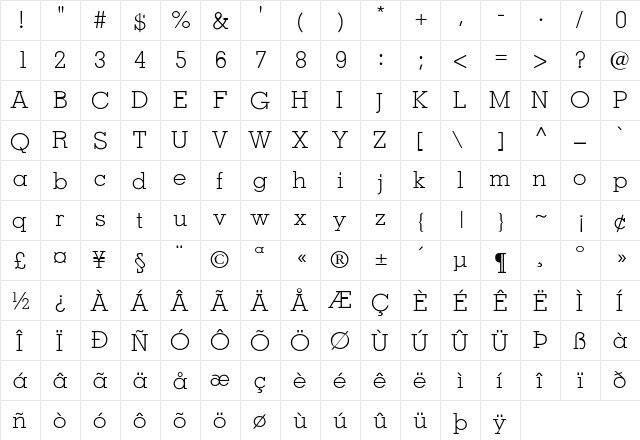
Memphis-Light Regular
Design Context for Memphis-Light Typeface
Memphis-Light offers clean, dependable letterforms without strong stylistic allegiance, making it a practical choice for designers who need flexibility. Its slender proportions lend an understated elegance to any composition.
Pro Tip: Use Memphis-Light in both headline and body roles to test its range before committing to a single application.